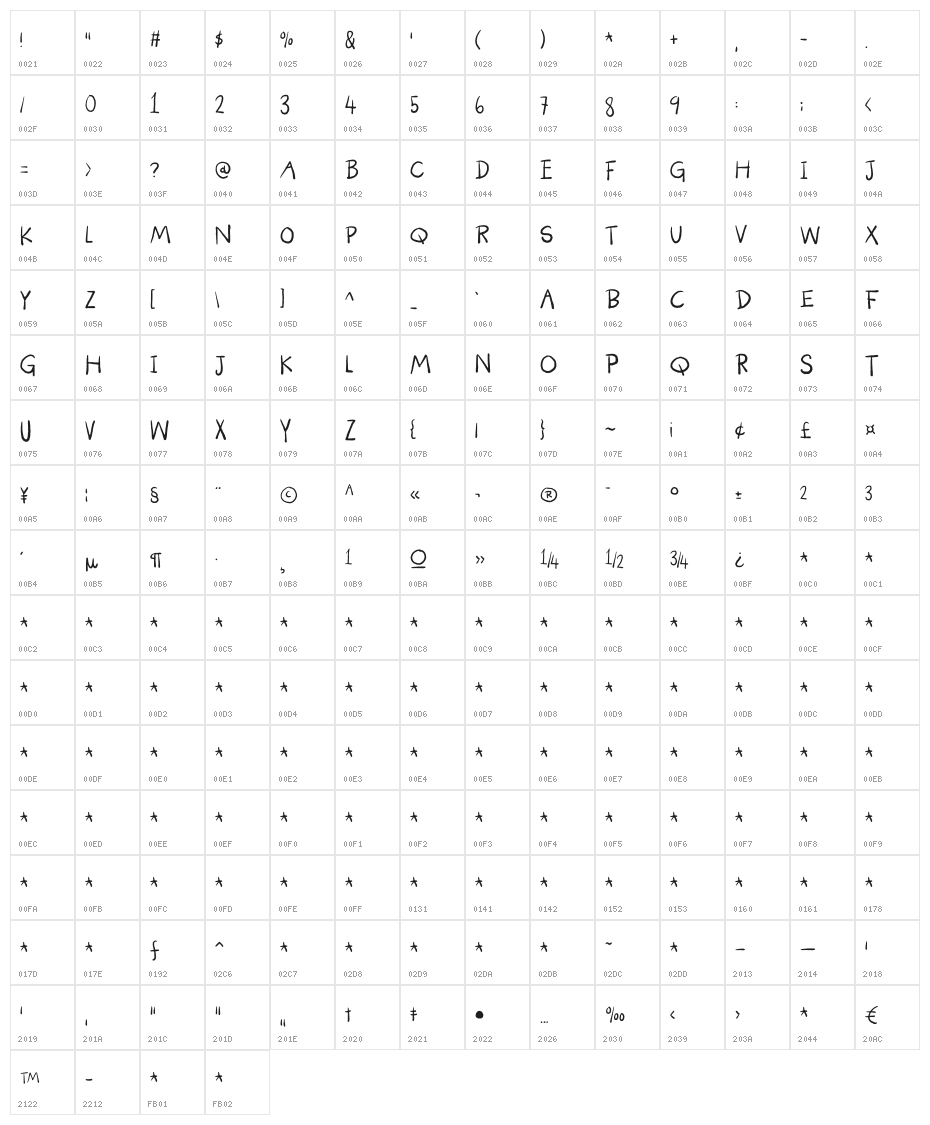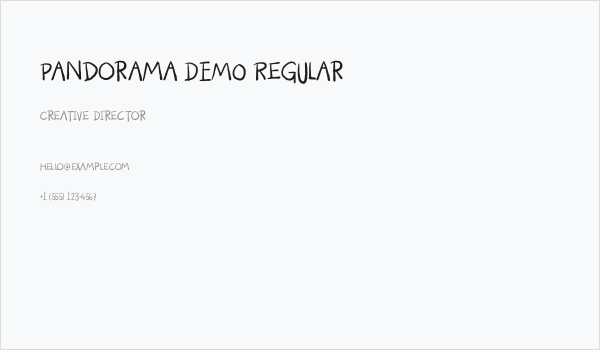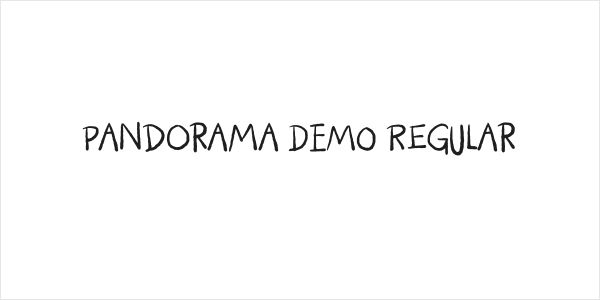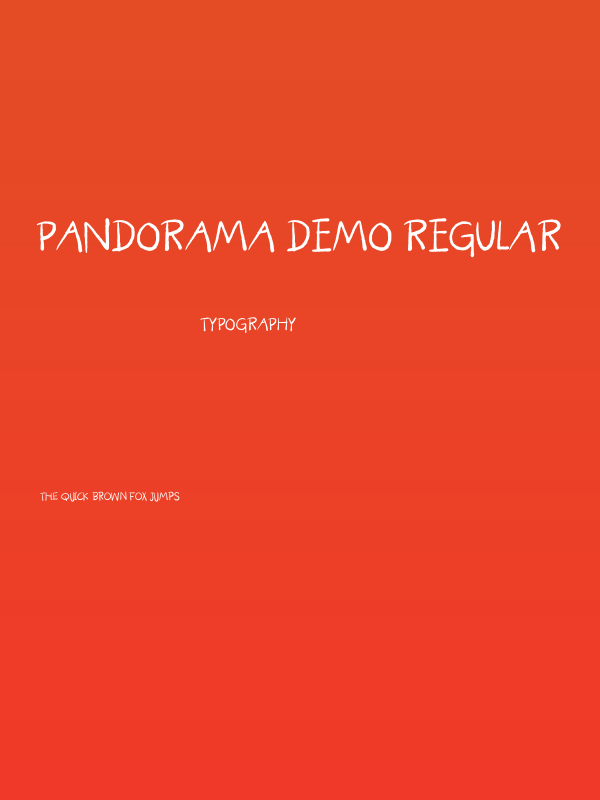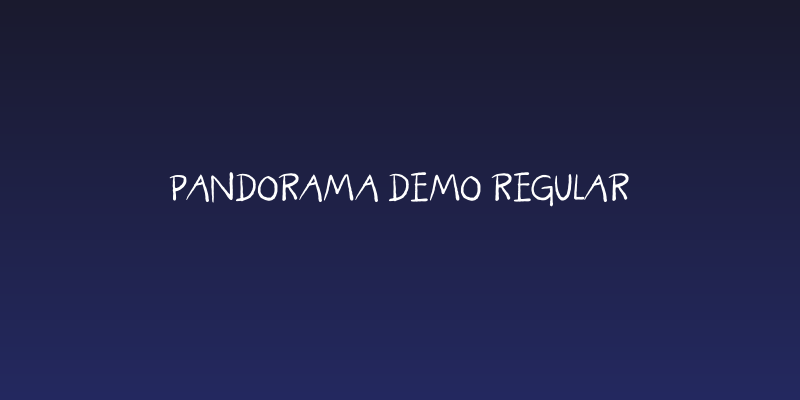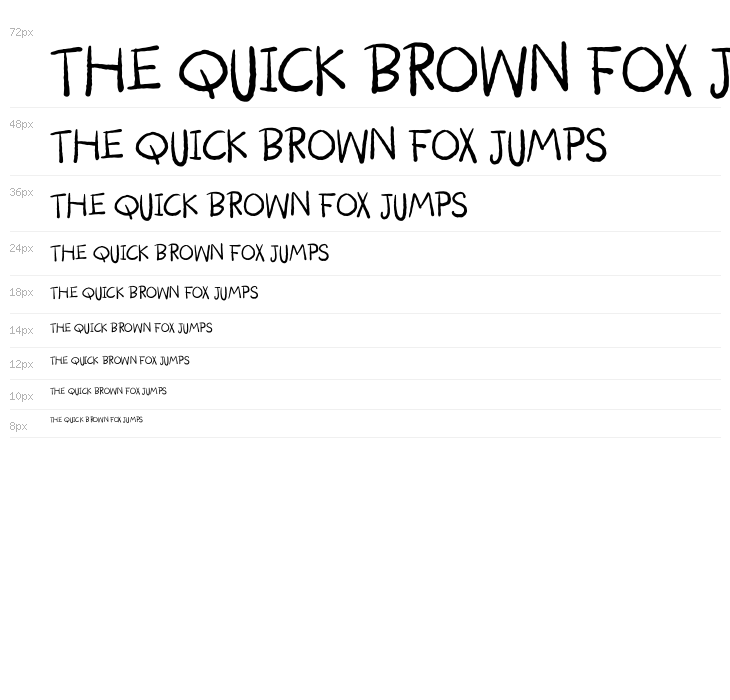
Pandorama DEMO Regular Font
Pandorama DEMO Regular Description
This font features a playful and hand-drawn style, characterized by its irregular strokes and slightly uneven baseline, giving it a casual and informal appearance. The letters have a whimsical quality, with varying stroke thickness that adds to its charm. The uppercase and lowercase letters maintain a consistent style, while the numerals and special characters complement the overall aesthetic. This font is ideal for projects that require a personal touch or a creative flair, making it suitable for artistic designs, children's books, or playful branding.
| Use Case | Logos, Headlines, Artistic designs |
| Proposed Projects | Ideal for children's books, artistic designs, playful branding, and creative projects. |